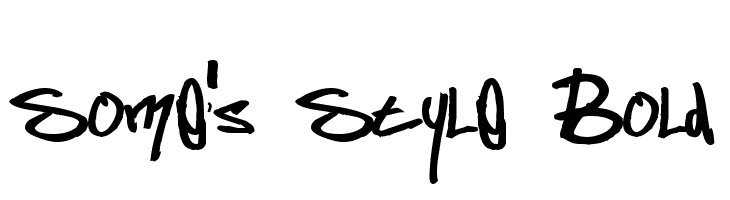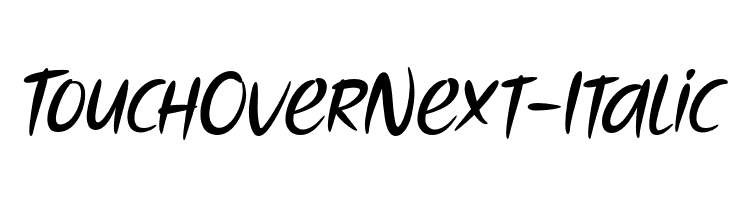
A bold, italicized handwritten font with dynamic strokes.
A playful, handwritten font with tall, narrow letters and a slight slant.
A playful, bold font with rounded edges and a bubbly appearance.
An elegant script font with flowing, cursive style and high contrast strokes.
A flowing, cursive font with elegant, sweeping lines and a handwritten appearance.
An artistic and decorative font with each character enclosed in a detailed emblem.
A bold, playful font with rounded edges and a hand-drawn style.
A decorative font with a mosaic-like texture and elegant serif forms.